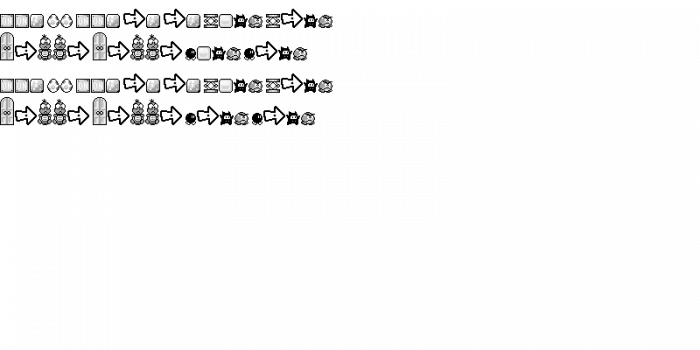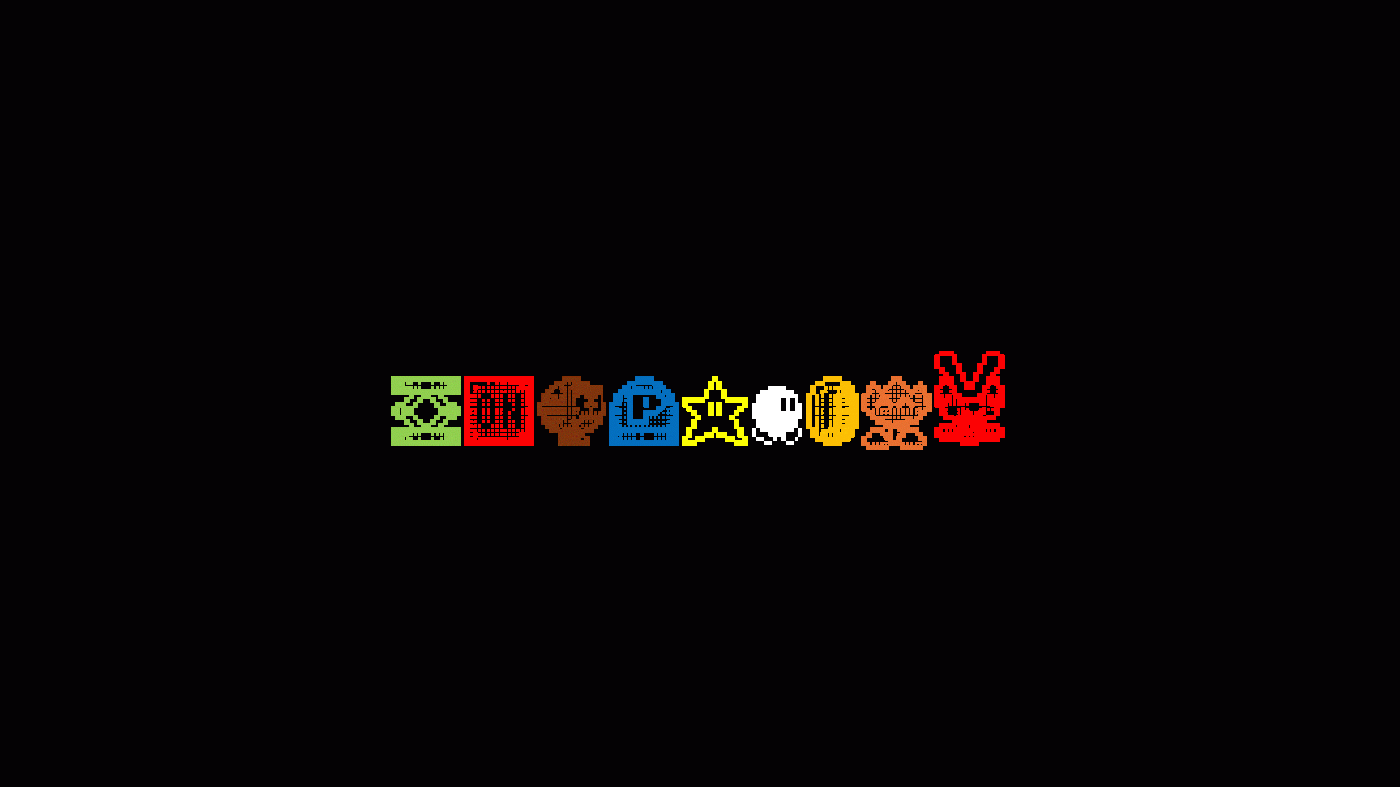
There's Zigzag Lava Bubble in the game, which move diagonally and bounce off walls, but for X, I don't think there's anything in English, but there is Xūxū Guǐ (嘘嘘鬼) (meaning Boo in Chinese), which does start with an X when romanized into Latin.
@The Dab Master - Excellent work here.  Always like seeing video game dingbats recreated on FontStruct.  The greyscale effect is wonderful.  Great job.  :^)
For the X, Boo. For Z, Zigzag Lava Bubble plz
Super Dingbat Worldby The Dab Master